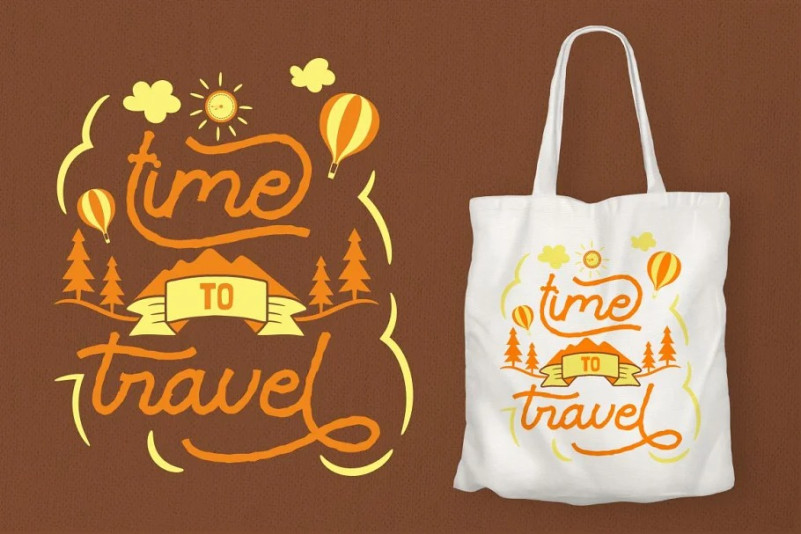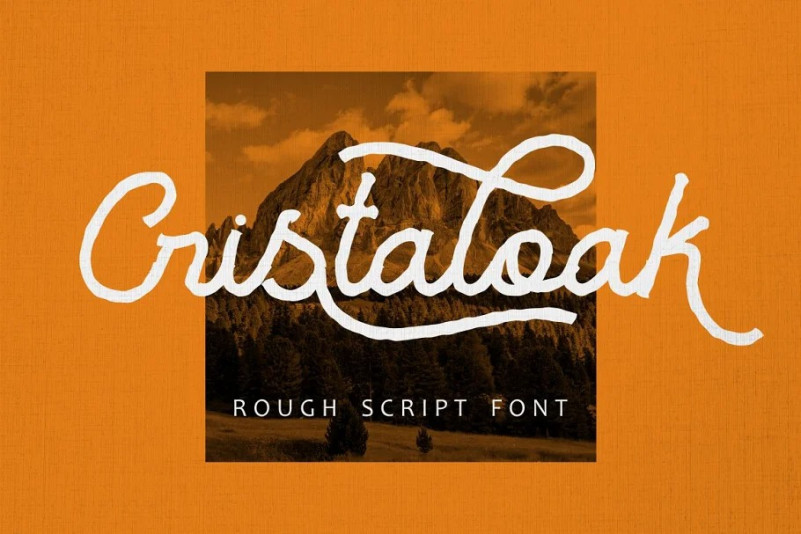
Cristaloak Font
Introducing Cristaloak Script Font– a rough monoline script font. This font has a rough shape in the body of the font, different from monoline fonts in general. The rough shape of this font will make the retro/vintage feel more visible. Cristaloak is perfect for vintage design, badge, logos, t-shirt, poster, branding, packaging, signage, book cover and so much more!
Come with opentype feature with a lot of alternates, its help you to make great lettering. This font is also support multi language.